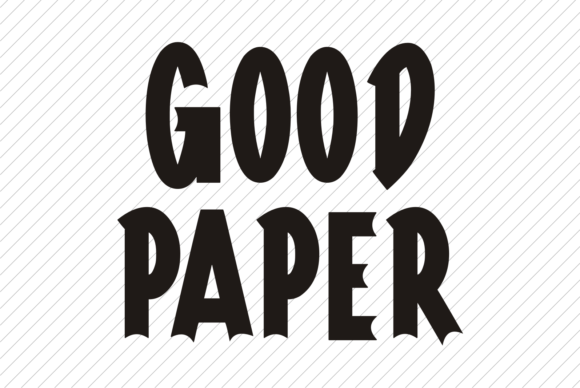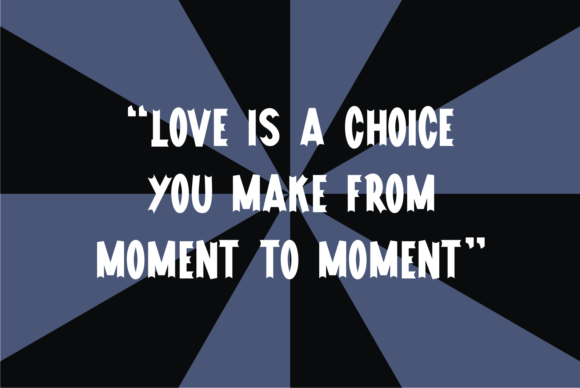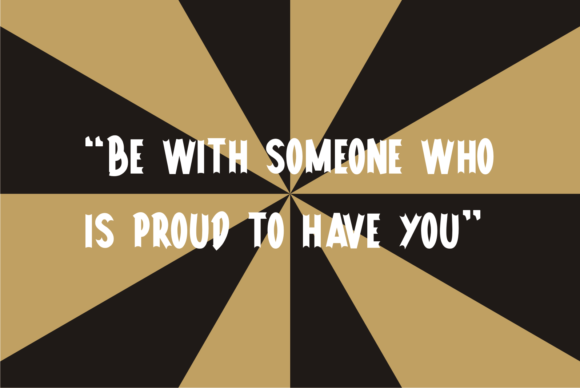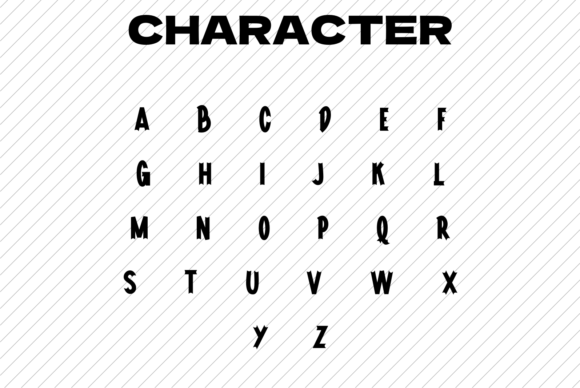
Introduction to Manuveris Mania Font
Manuveris Mania is a thick-lettered and cool display font.
Simple but with a strong visual effect, this font will instantly make your creations more appealing than any others .
Key Features of Manuveris Mania Font
Why Choose Manuveris Mania Font?
Manuveris Mania Font offers exceptional quality and versatility, making it a valuable addition to your design toolkit. Whether you’re creating for personal projects or commercial use, Manuveris Mania Font delivers professional results.